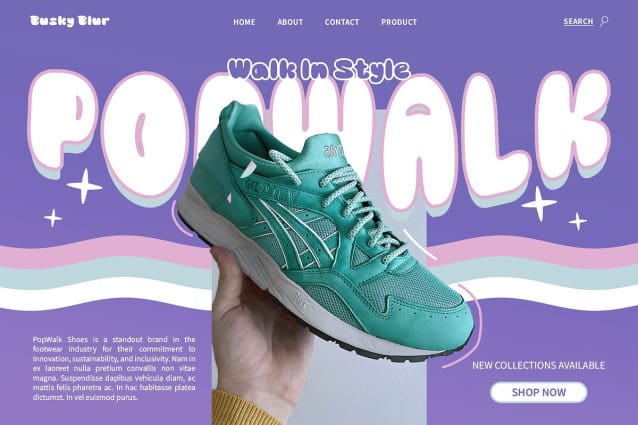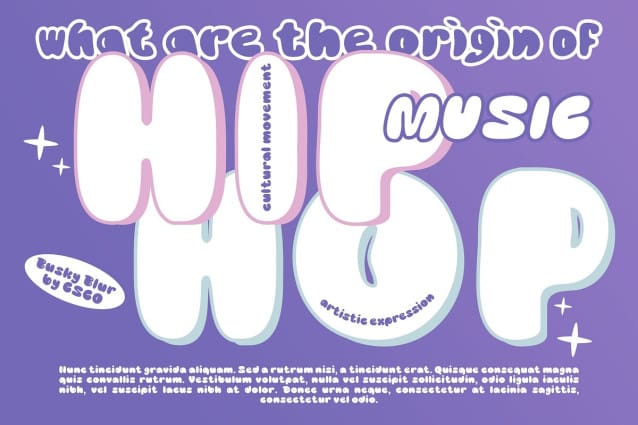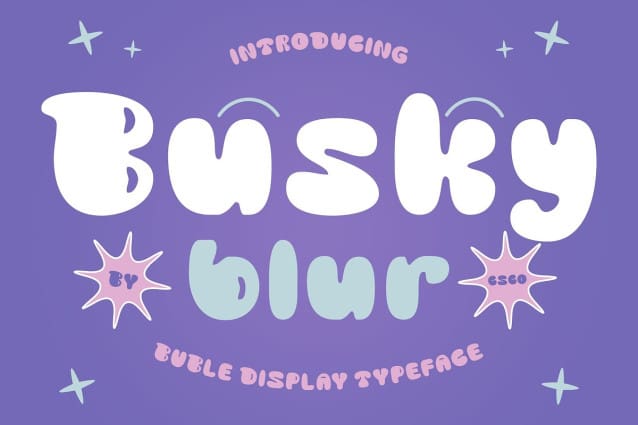
Busky Blur Font
Busky Blur Font is a display font with bold, cute, and funky shapes, enhanced by a blur effect that creates a bold and attention-grabbing appearance. Its thick and adorable characters, along with its eccentric style, add a unique and different touch to the design.
Busky Blur is suitable for designs that want to emphasize their boldness and uniqueness. Whether you’re designing a poster, a logo, or a website, BuskyBlur can help your message stand out and grab attention.
The blur effect of Busky Blur gives it a soft and captivating look, blurring the lines between each letter and creating a captivating appearance. This effect adds depth and dimension to the font, making it more visually appealing.
Despite its bold appearance, Busky Blur is versatile and fun, making it suitable for a wide range of design applications. Its cute and funky shapes make it perfect for projects that demand a playful and energetic look.
Elevate your designs with Busky Blur, where boldness meets cuteness and funkiness in a captivating display font. Its unique design features make it perfect for projects that aim to create a bold and attention-grabbing look.